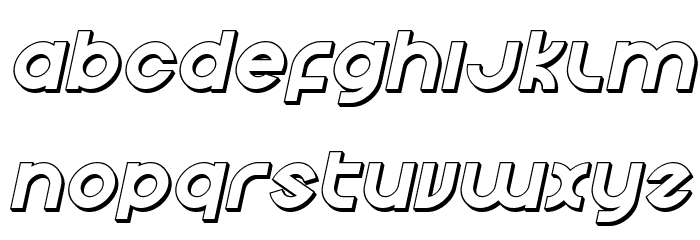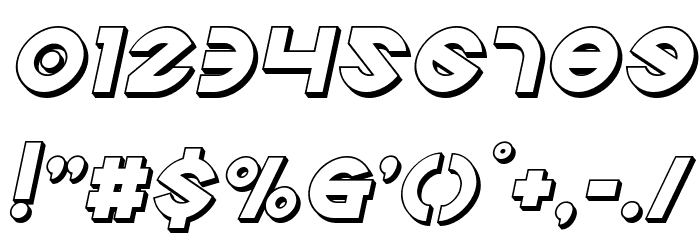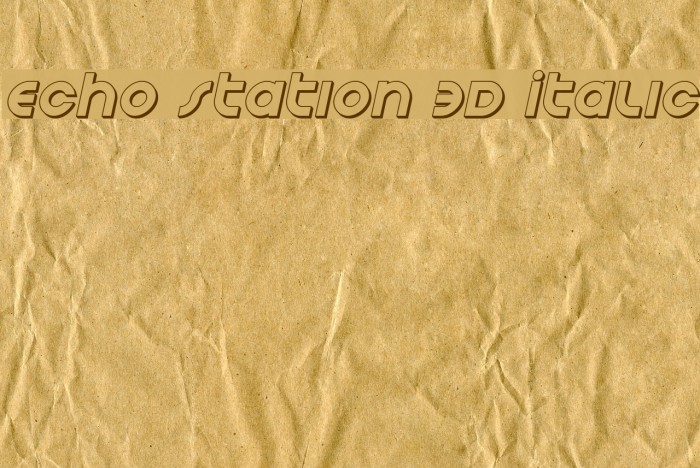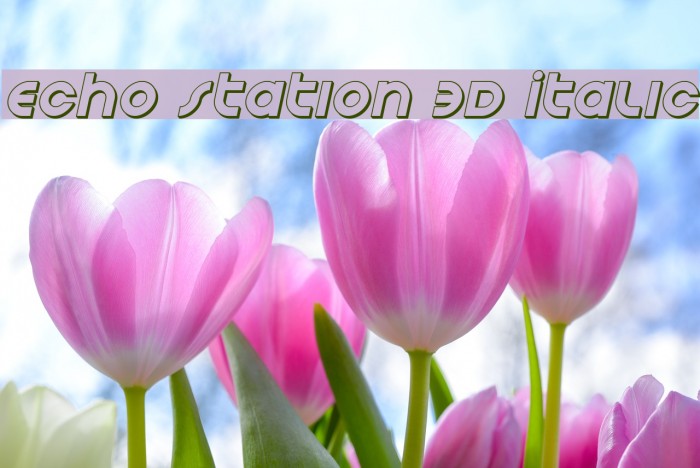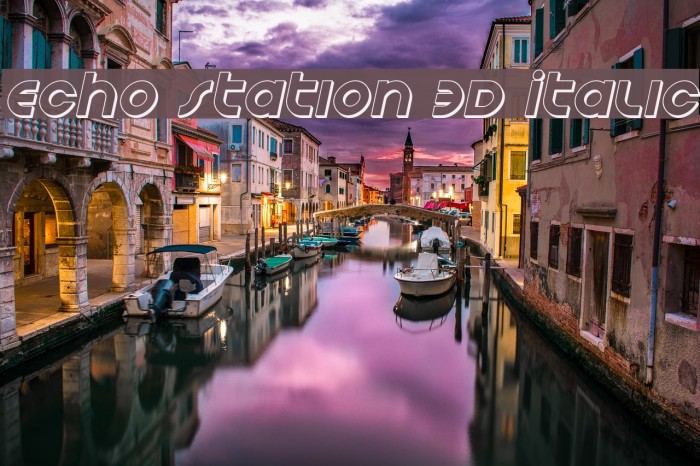
Echo Station 3D Italic Font
This font features a bold, three-dimensional style with a distinct italic slant, giving it a dynamic and futuristic appearance. The characters are outlined, creating a shadow effect that enhances the 3D illusion. The design is clean and geometric, with rounded edges that soften the overall look. The uppercase and lowercase letters maintain a consistent style, while the numerals and special characters complement the alphabet with similar boldness and structure. This font is visually striking and ideal for making a statement.
A bold, 3D italic font with a futuristic and dynamic style.
- Proposed Projects: Ideal for projects that require a modern and eye-catching design, such as posters, video game titles, and tech-related branding.